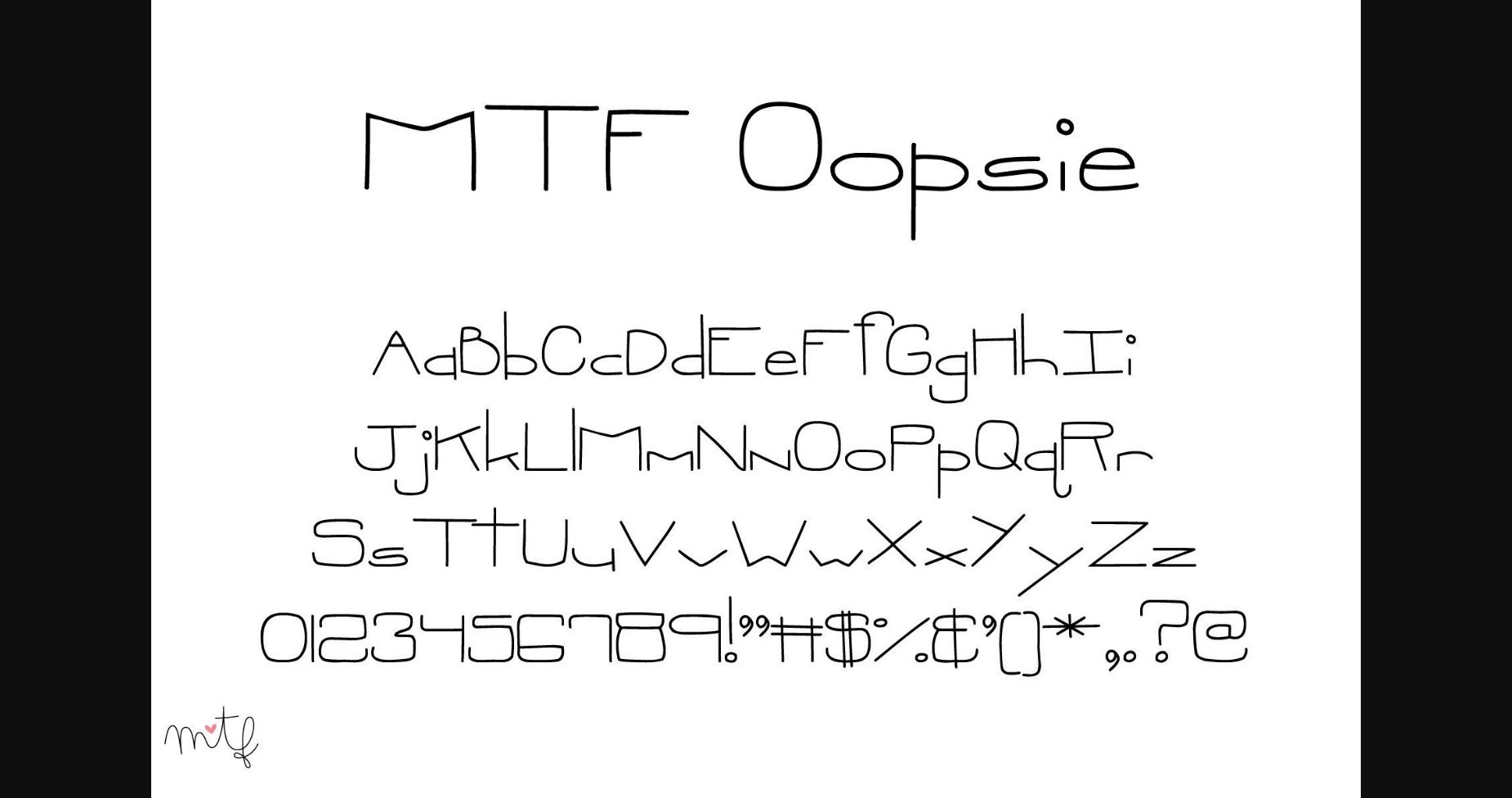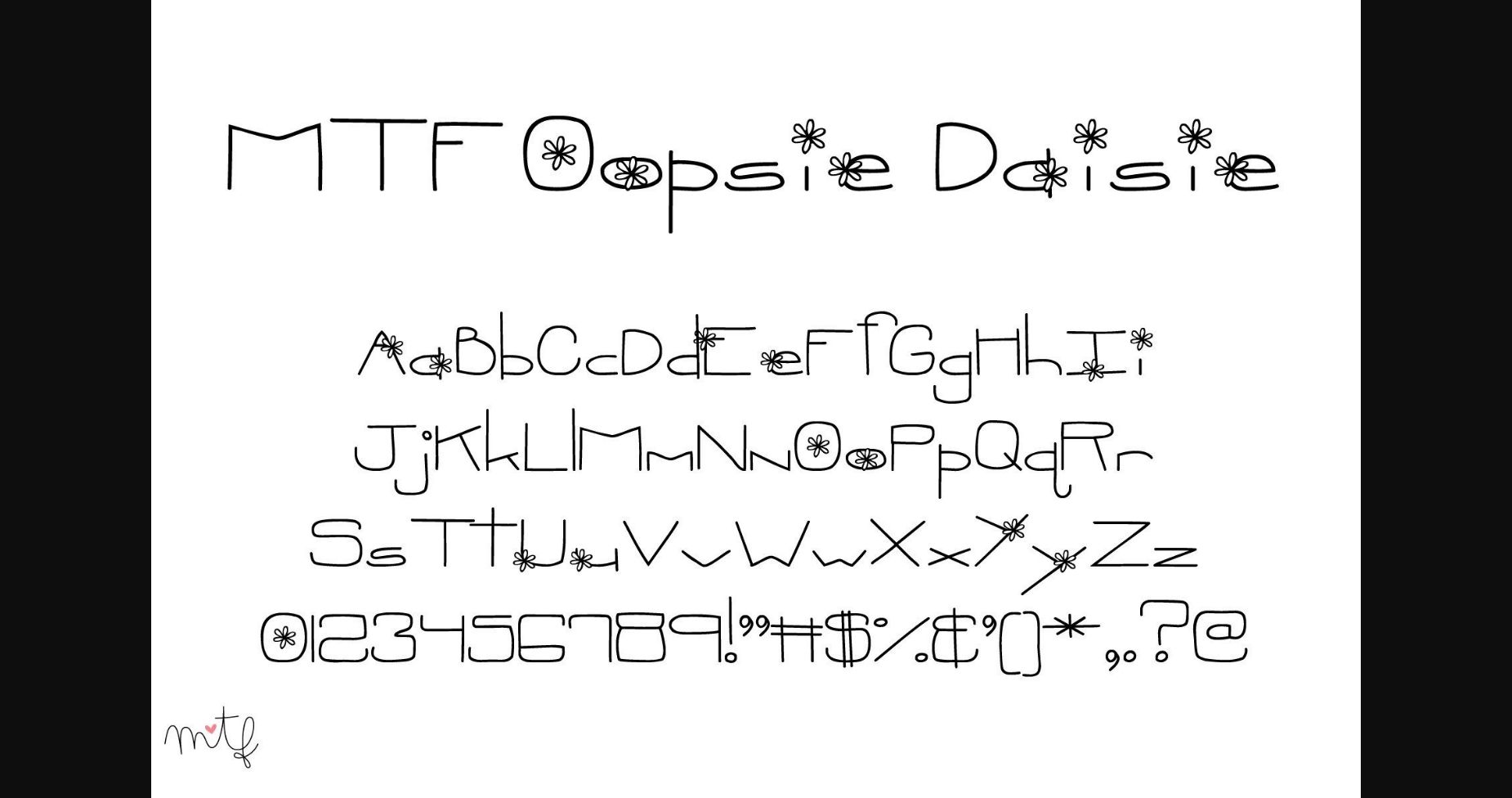
HomeSans Serif FontsOopsie Duo Font Sans Serif Fonts Oopsie Duo Font FacebookXPinterestWhatsApp 1 of 4 ... Oopsie Duo Font Poster 2... Oopsie Duo Font Poster 3... Oopsie Duo Font Poster 4... About Oopsie Duo Font Oopsie is probably the most fun and adorable sans serif and decorative duo font! The characters are slim, tall, and quirky, and the ones decorated with daisies are just so charming! DOWNLOAD NOW People also explored Anastacia Font Beach Beer Time Mockup Codeplay Font Mtk Arrowm Font Neuport Monogram Rotterdam Font Modigirl Script Font Erenite Font Electroharmonix 322 0 TagsOopsie Duo Font Previous articleKimsino FontNext articleMeline Font LEAVE A REPLY Cancel reply Comment: Please enter your comment! Name:* Please enter your name here Email:* You have entered an incorrect email address! Please enter your email address here Website: Save my name, email, and website in this browser for the next time I comment. Personal Use Free Love Ya Personal Use Free Read more about this font Unlock Endless Creativity with the FREE September Clipart Huge Bundle (Valued at $700!) Personal Use Free Read more about this font Senza Bella Personal Use Free Read more about this font Edo SZ Personal Use Free Read more about this font BLOG Using Fonts in Digital Marketing: Tips to Strengthen Your Brand Identity In the realm of digital marketing, every visual element plays a crucial role in shaping a brand's identity, and fonts are no exception. The... Fonts That Capture the Spirit of New York City The 10 Best Handwriting Fonts to Add Personality to Your Designs Top 10 Handwritten Fonts That Elevate Your Designs